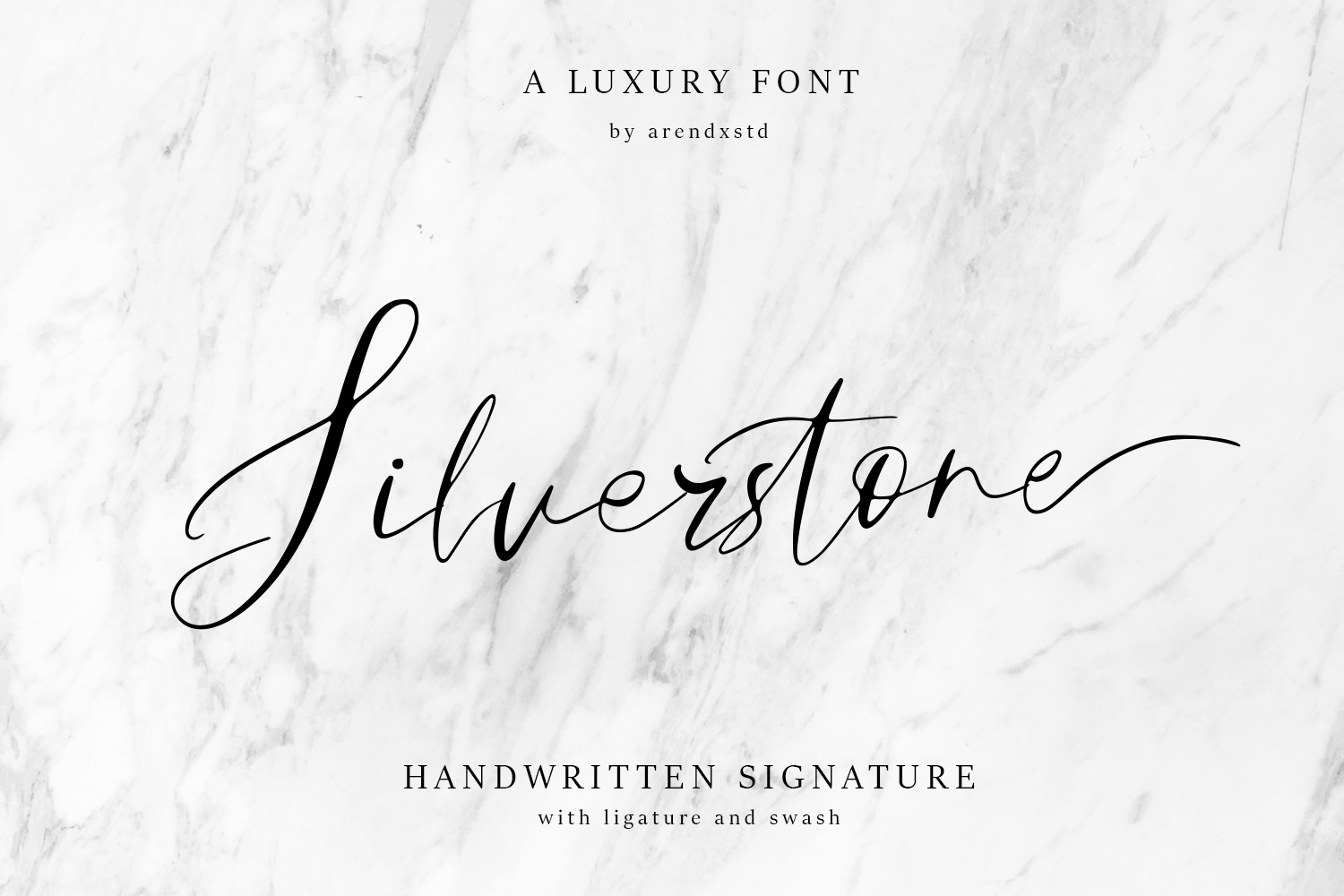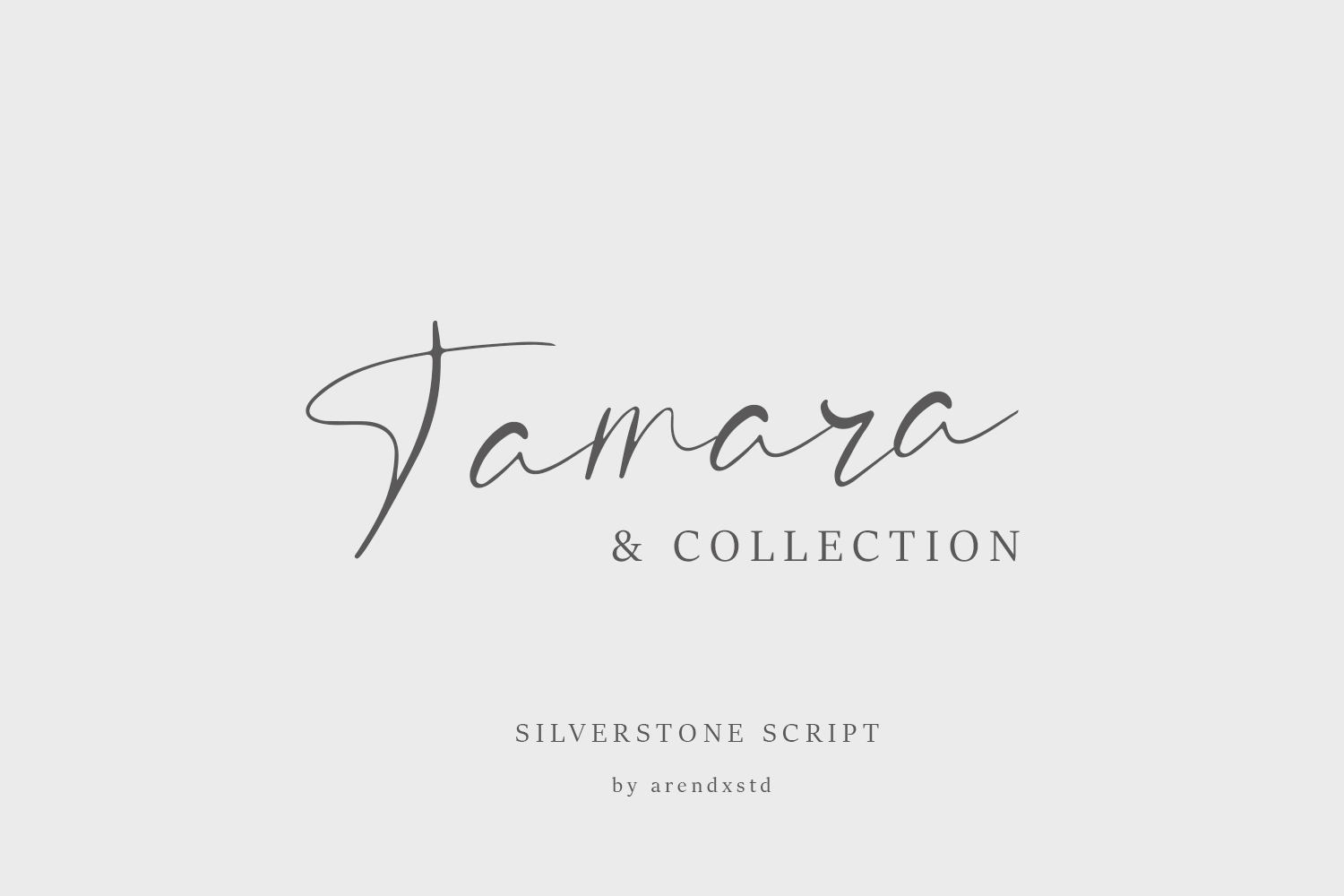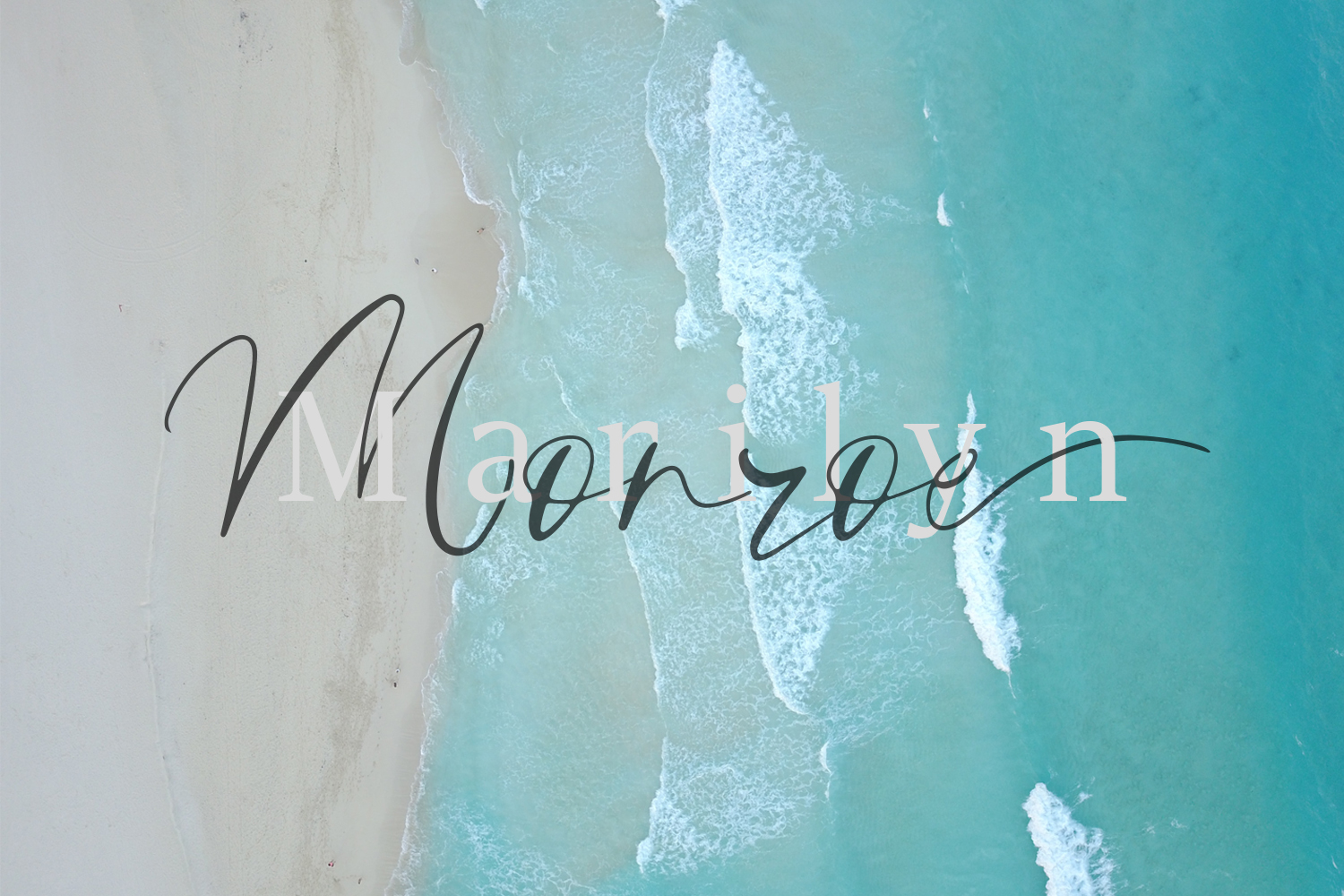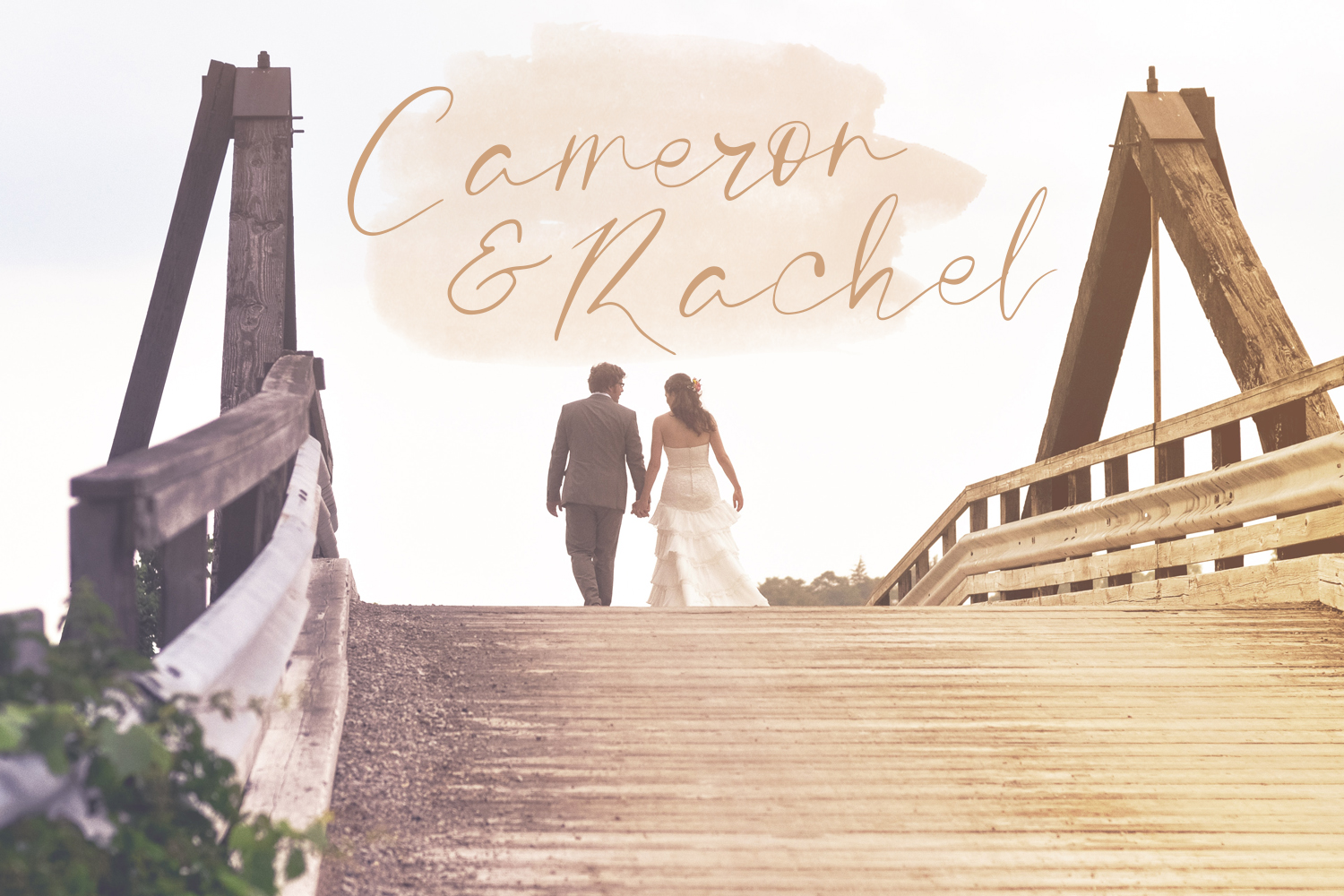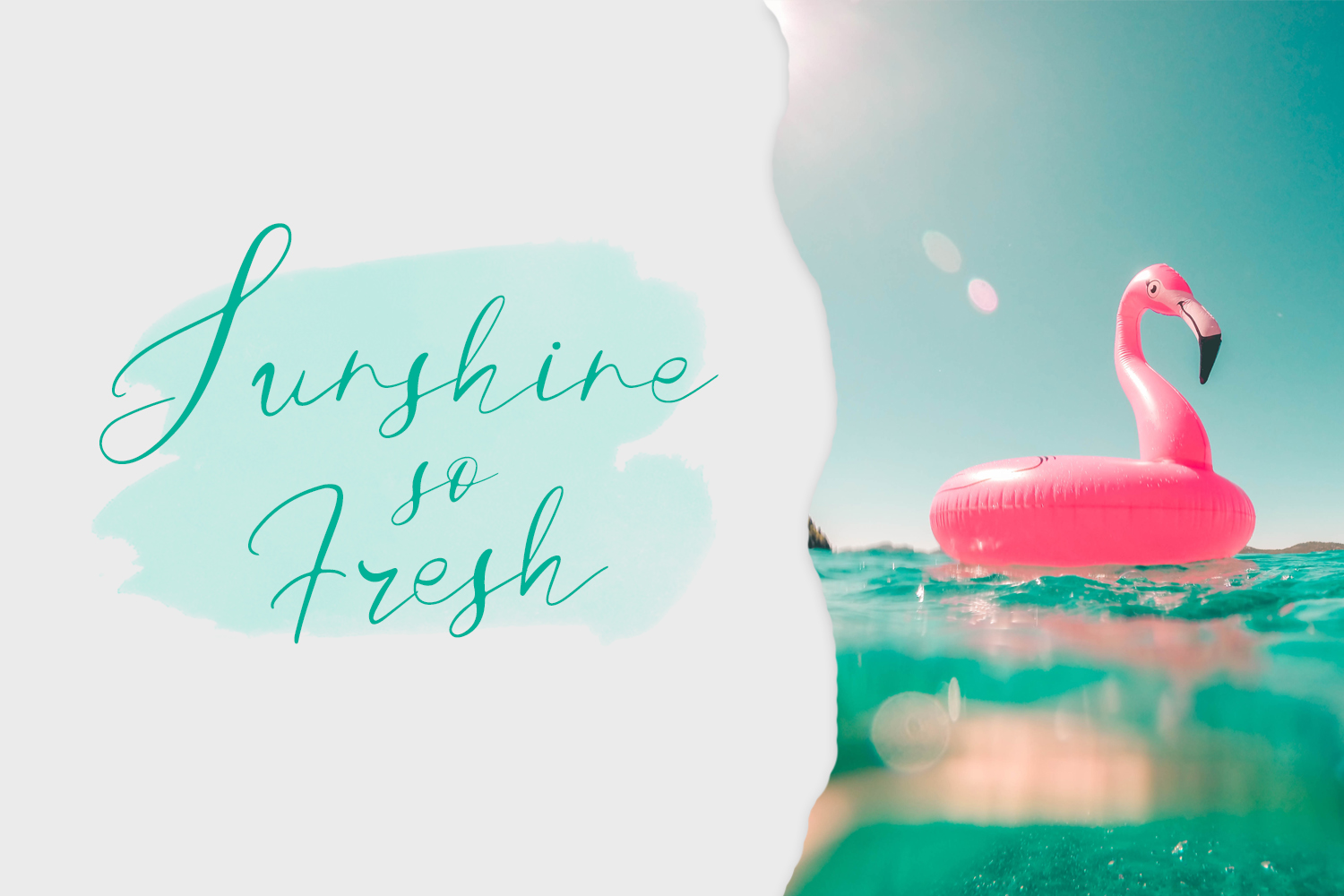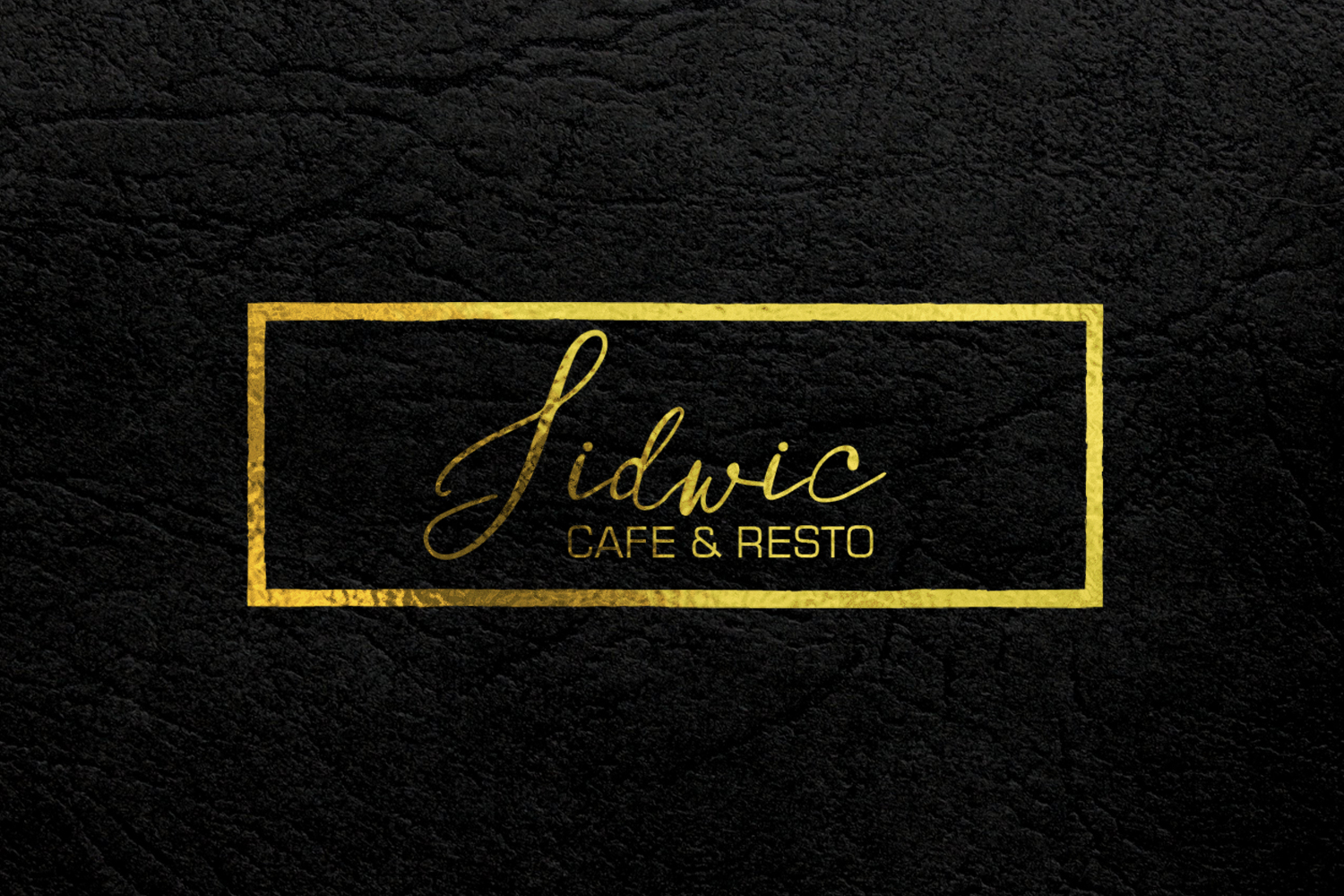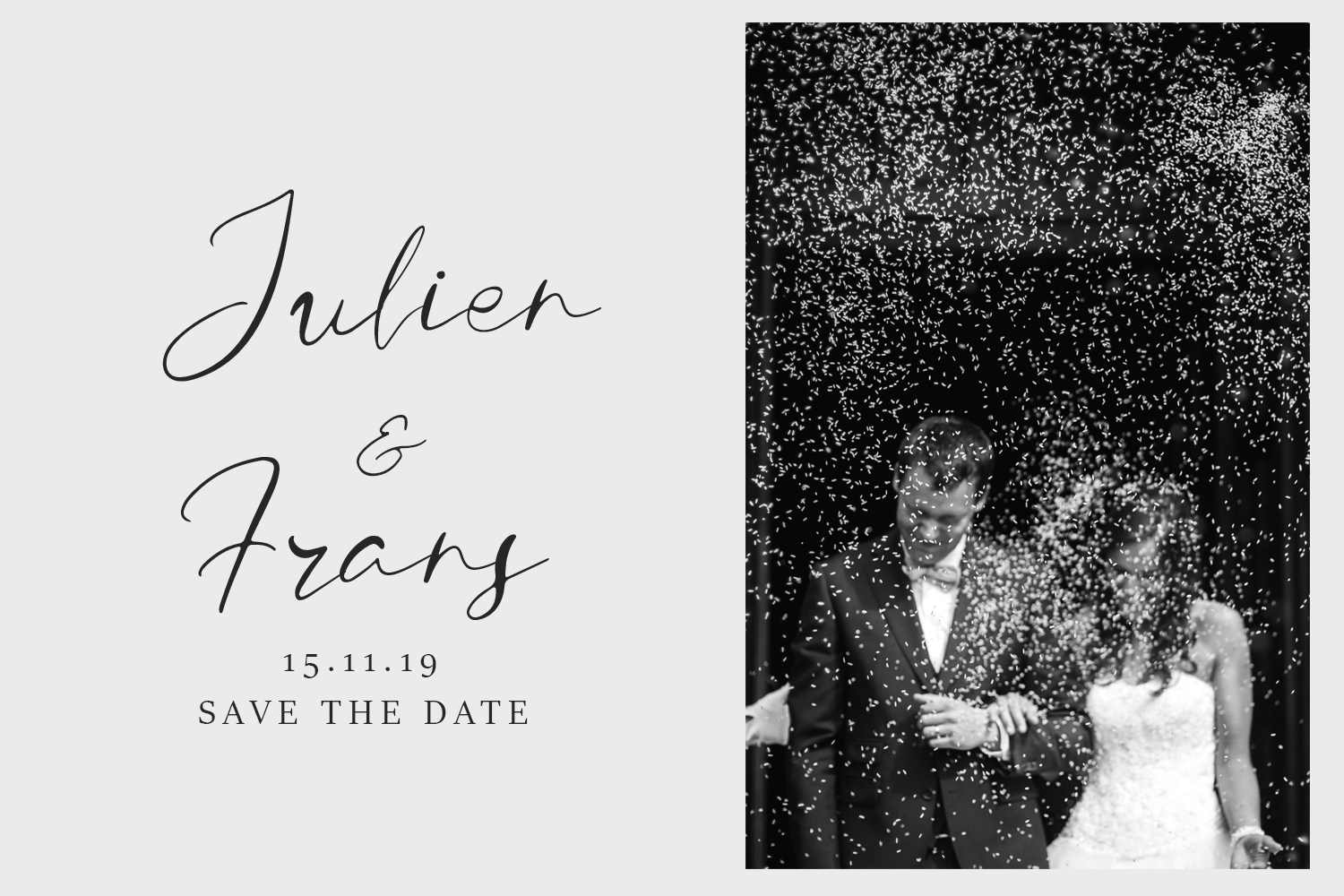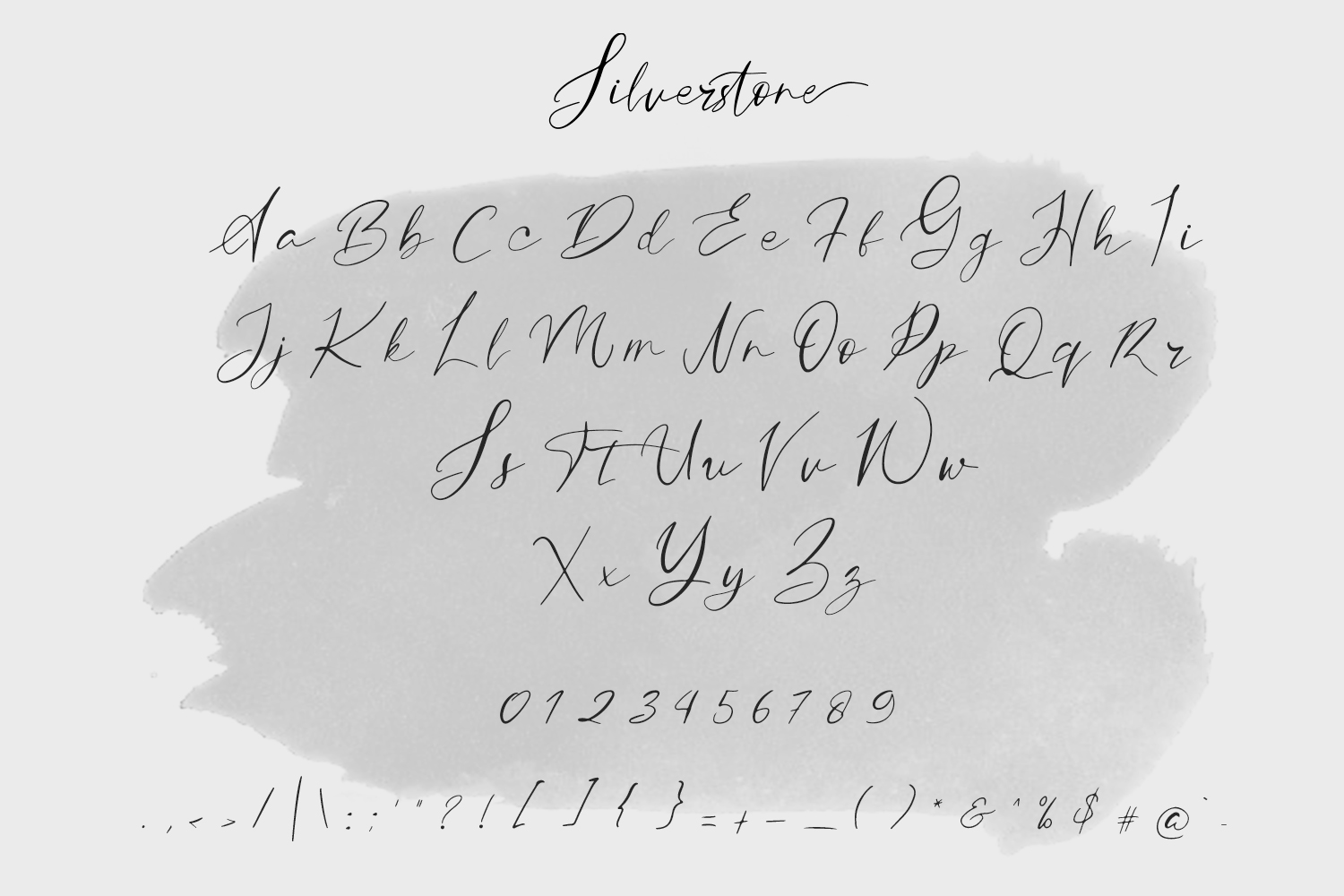
introducing Silverstone Luxury script font, using style hand made with brushing. Silverstone a beautiful for wedding card design, logotype, website header, fashion design and any more.